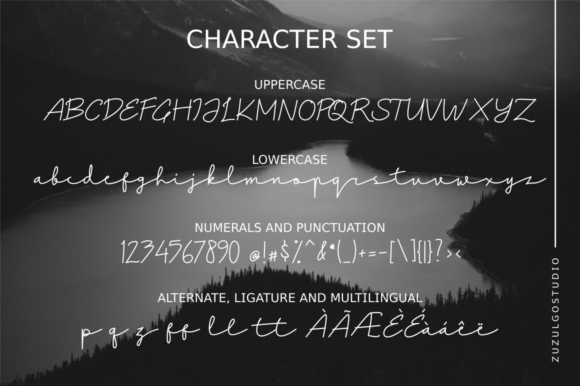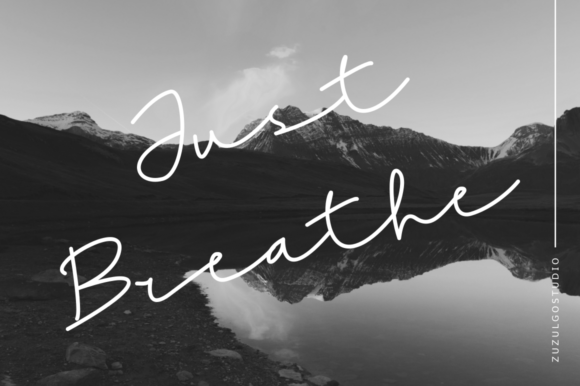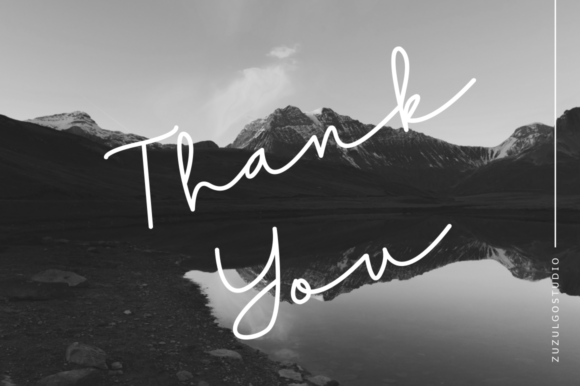
Introduction to Kinan Font
As a designer, have you ever found yourself struggling to convey the perfect message with your typography? You’ve spent hours poring over design resources, searching for that one font that will elevate your creative project to the next level. Sometimes, it’s the smallest details that make all the difference – like the subtle flair of a well-crafted script.
Enter the Kinan Font, a fresh monoline script font that’s been making waves in the design community. With its sleek, modern aesthetic, Kinan Font is the perfect way to add a touch of refinement to your design. Whether you’re working on a high-profile branding project or a personal creative endeavor, this font is sure to impress.
Key Features of Kinan Font
- High-quality design resource for creative projects: Kinan Font offers a unique and stylish typography that can elevate your designs.
- High-resolution design: Kinan Font is designed with high-resolution graphics in mind, making it perfect for use in large-scale designs.
- Unique and creative style: Kinan Font’s unique design makes it stand out from other fonts, adding a touch of creativity to your projects.
- Perfect for digital and print projects: Kinan Font is suitable for use in both digital and print projects, including websites, social media, and marketing materials.
Honest Review: Kinan Font
I recently had the opportunity to work with the Kinan Font for a creative project, and I must say, I’m quite impressed with its design and versatility.
Here are some of the things that work well for me:
- ✨ High-quality design that’s perfect for digital projects, especially those that require a modern and sleek aesthetic.
- ⚠️ Limited language support, which may be a concern for designers who need to work with languages other than English.
- ⚠️ Not as versatile for print projects, as the font may not hold up well to high-resolution printing.
Overall, I’m quite happy with the Kinan Font and would definitely recommend it as a design resource for digital projects. While it may have some limitations, its high-quality design and free download make it a valuable addition to any designer’s toolkit.
Getting the Most Out of Kinan Font
The Kinan Font is perfect for various creative projects, including: